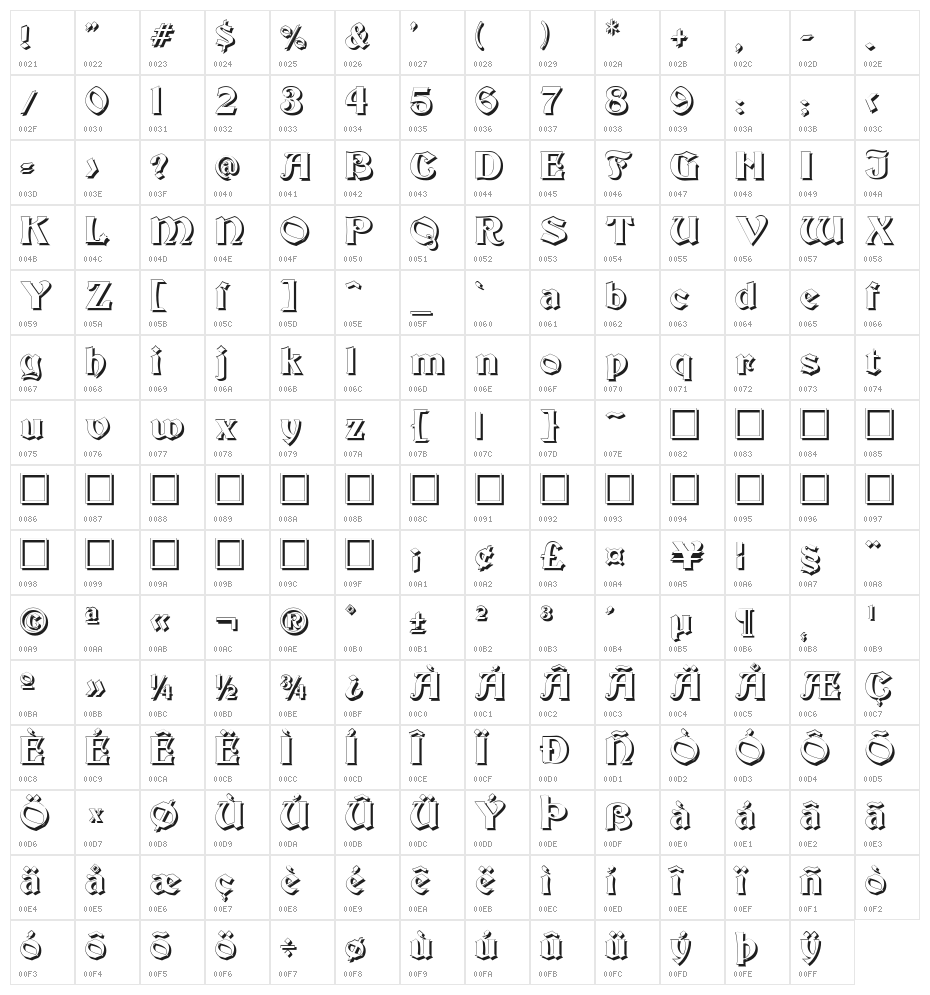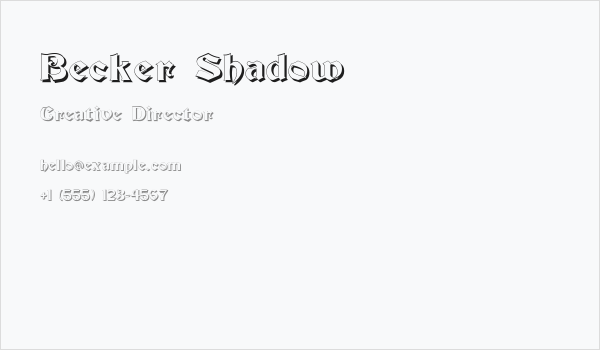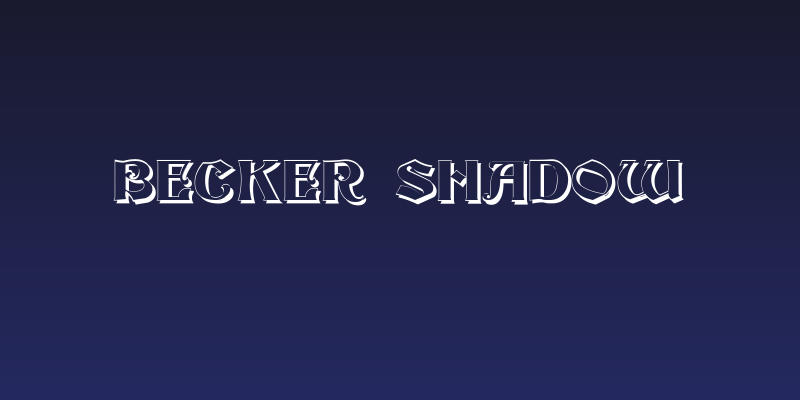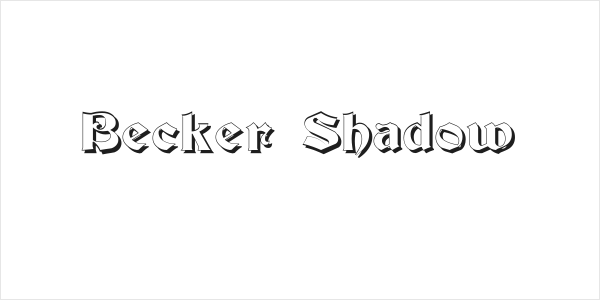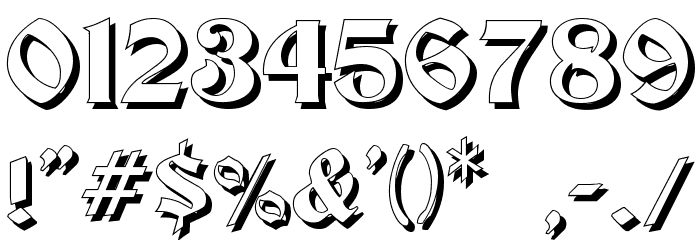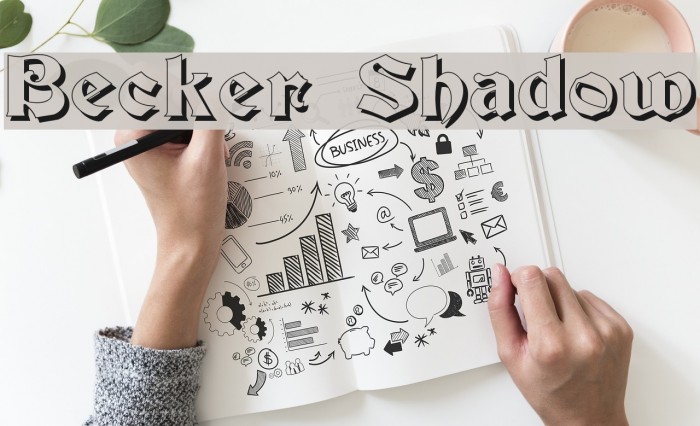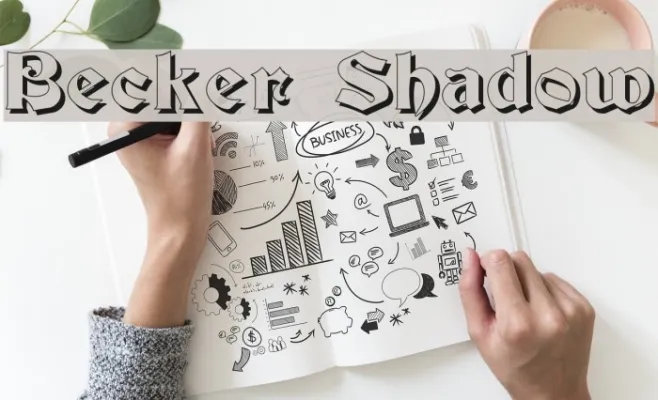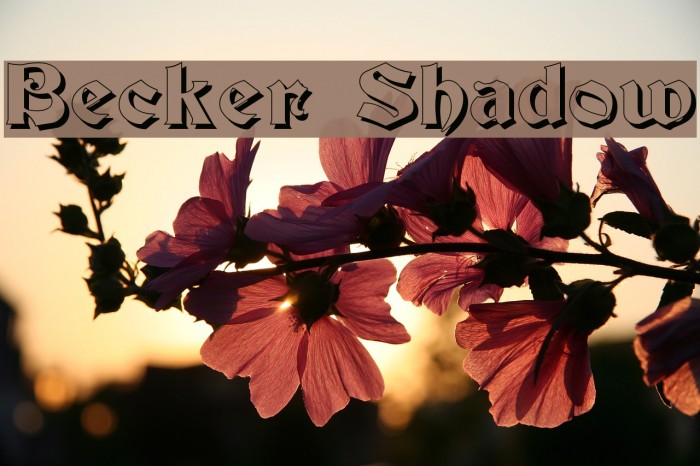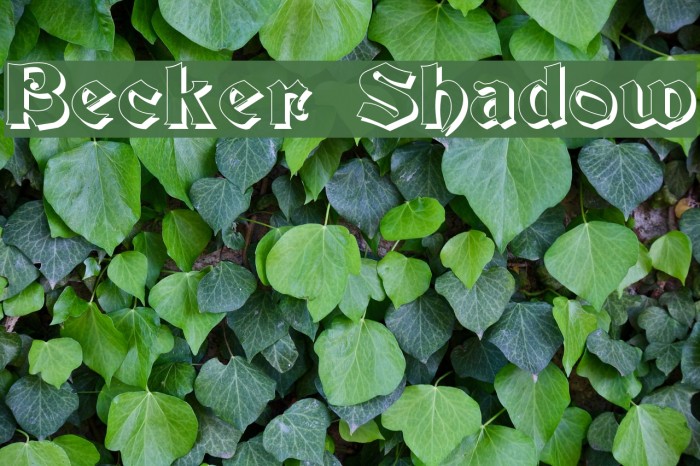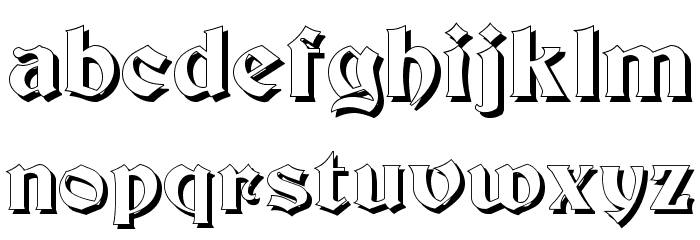
Becker Shadow Font
Becker Shadow Description
This font features a bold and decorative style with a distinct shadow effect that gives it a three-dimensional appearance. The characters are designed with a strong, angular structure, providing a sense of depth and drama. The uppercase and lowercase letters maintain a consistent style, with sharp edges and a slight curvature that adds to the overall aesthetic. The numerals and special characters are equally bold, ensuring uniformity across all glyphs. This font is ideal for making a statement, with its eye-catching design that stands out in any context.
| Proposed Projects | Ideal for posters, logos, headlines, and any design project requiring a bold, attention-grabbing font. |